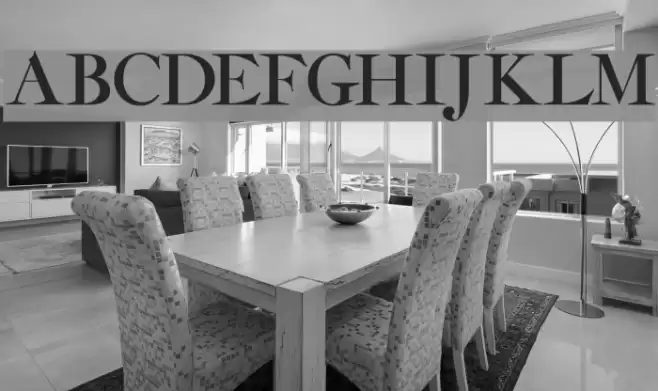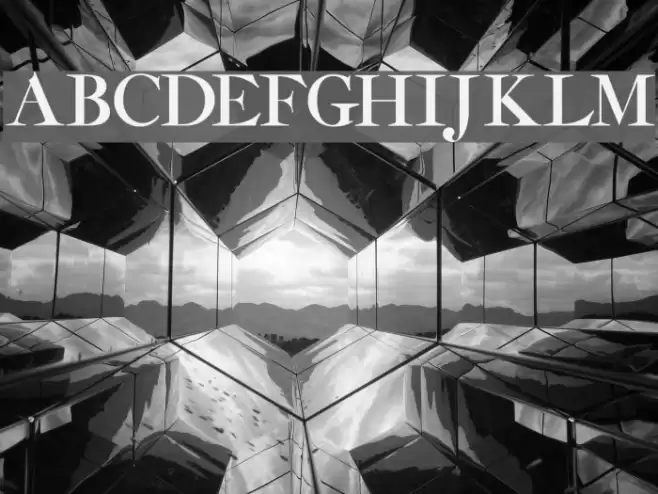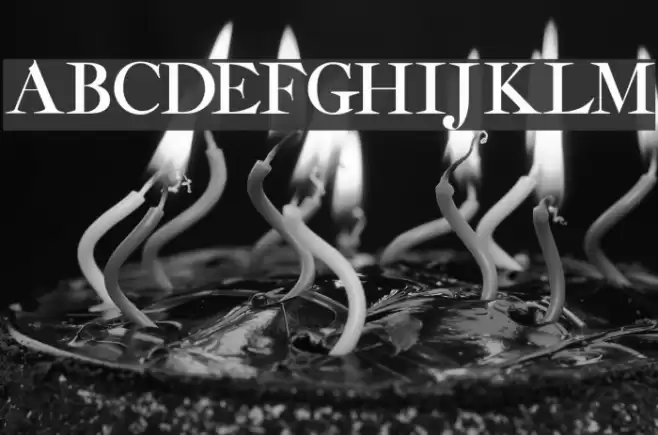
Amarfil Font
Amarfil Description
This font features a classic serif style with elegant, sharp serifs and a refined appearance. The uppercase letters exhibit a strong presence with slightly flared serifs, giving them a traditional yet sophisticated look. The overall design is balanced, with consistent stroke widths that provide a harmonious and readable text. The font is well-suited for formal and professional applications, offering a timeless aesthetic that can enhance the visual appeal of any project.
A classic serif font with elegant, sharp serifs and a refined, traditional appearance from Uncategorized fonts.
- Proposed Projects: Ideal for use in editorial design, book covers, formal invitations, branding for luxury products, and corporate identity materials.
- Overall Style: Classic
- Use Case: Headlines, Body text, Logos